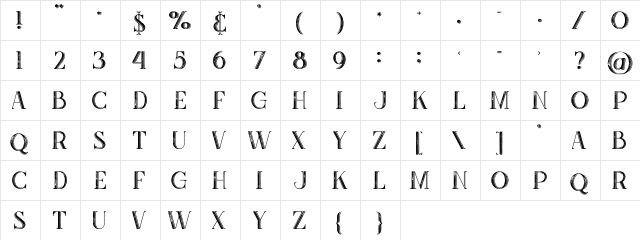
Zahra Inline Grunge Inline Grunge
Design Context for Zahra Inline Grunge Typeface
Zahra Inline Grunge trades polish for personality, using distressed and eroded forms to bring grit and attitude to creative work.
Suited to punk-influenced zines, underground music branding, streetwear, and raw, anti-corporate design.
Pro Tip: Pair Zahra Inline Grunge with intentionally raw or lo-fi design elements. Fighting against it with overly polished surroundings will undermine its personality.